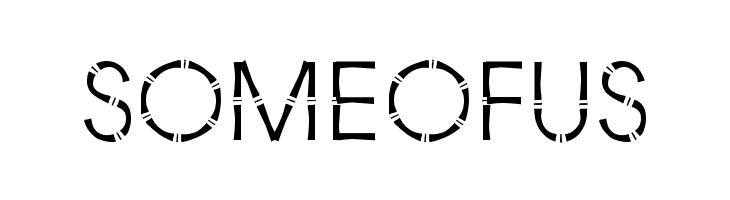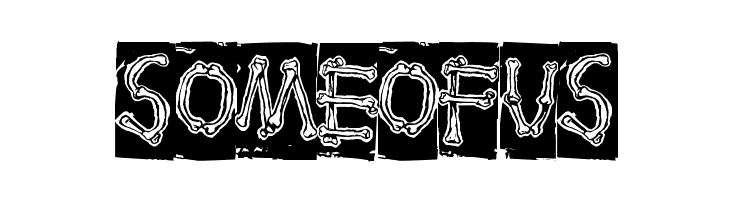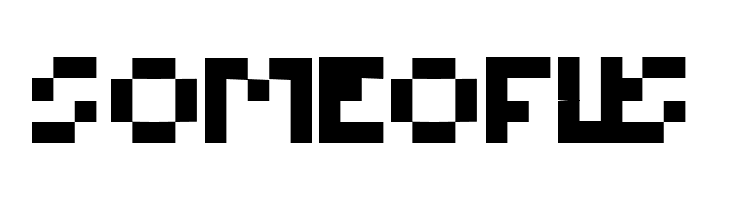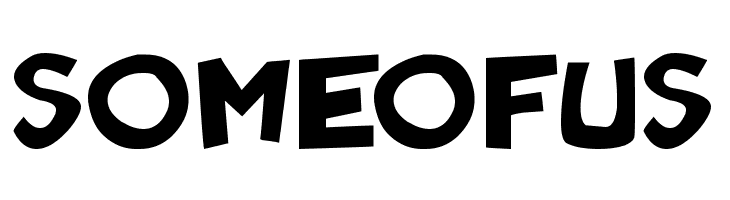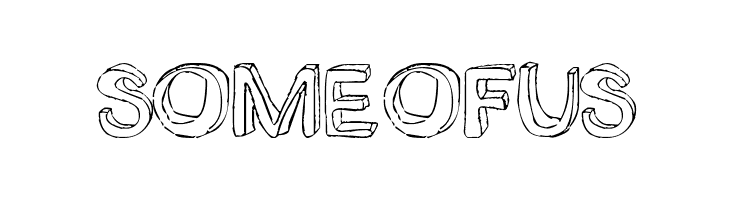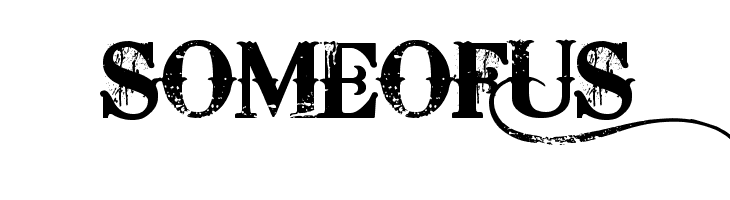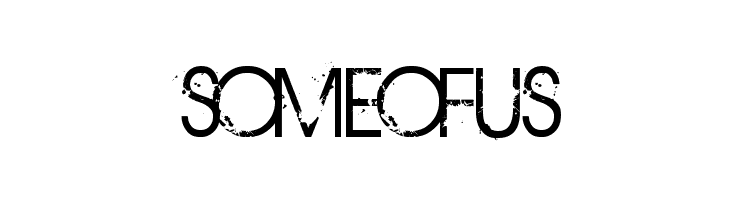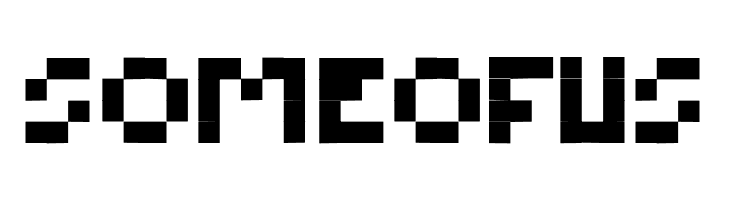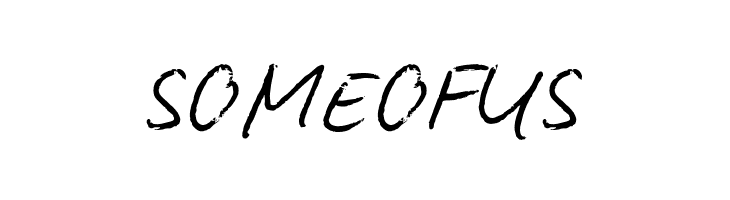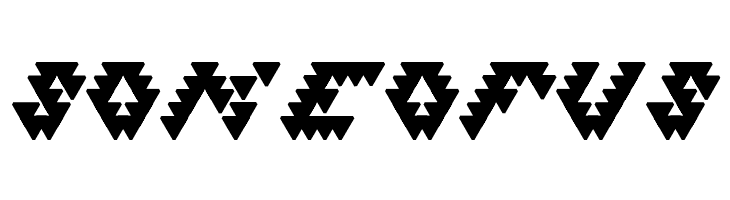
A futuristic, geometric font with a bold, three-dimensional appearance.
A bold, playful font with irregular, cartoonish letterforms.
A modern, segmented font with a bamboo-inspired design.
A bold blackletter font with sharp, angular lines and intricate detailing.
A classic serif font with sharp serifs and elegant proportions, ideal for traditional and sophisticated designs.
An elegant oblique font with smooth, fluid strokes and moderate contrast.
An ornate and decorative font with a medieval flair, featuring intricate letterforms and dramatic serifs.
A display font made from images of retro boomboxes and cassette tapes.
An artistic font resembling ancient cave drawings with unique, decorative characters.
A whimsical pictogram font inspired by classic TV show scenes, featuring playful silhouettes.
A bold, geometric font with blocky, angular letterforms and a modern industrial style.
A display font using bird silhouettes as letterforms.
Silhouette-style animal and bird icon font.
A decorative and abstract font with bird-like motifs and bold, circular shapes.
Expressive handwritten font with dynamic strokes and a natural flow.
A dynamic, expressive handwritten font with fluid, organic strokes.
A bold, distressed sans-serif font with a modern, edgy look.
A bold, distressed font with a grunge, textured appearance.
A bold and abstract collection of graphic symbols with a playful yet sophisticated style.
A decorative, distressed font with elaborate swirls and a grungy appearance.
A pixelated, retro-style font with a blocky, geometric design.
A bold, decorative font with intricate details and a modern flair.
A playful, bone-like decorative font with bold, rounded elements.
A playful, bone-themed font with bold outlines and a three-dimensional effect.
A decorative bone-themed font with a shadow effect, perfect for spooky designs.
A bold, bone-themed font ideal for spooky or Halloween projects.